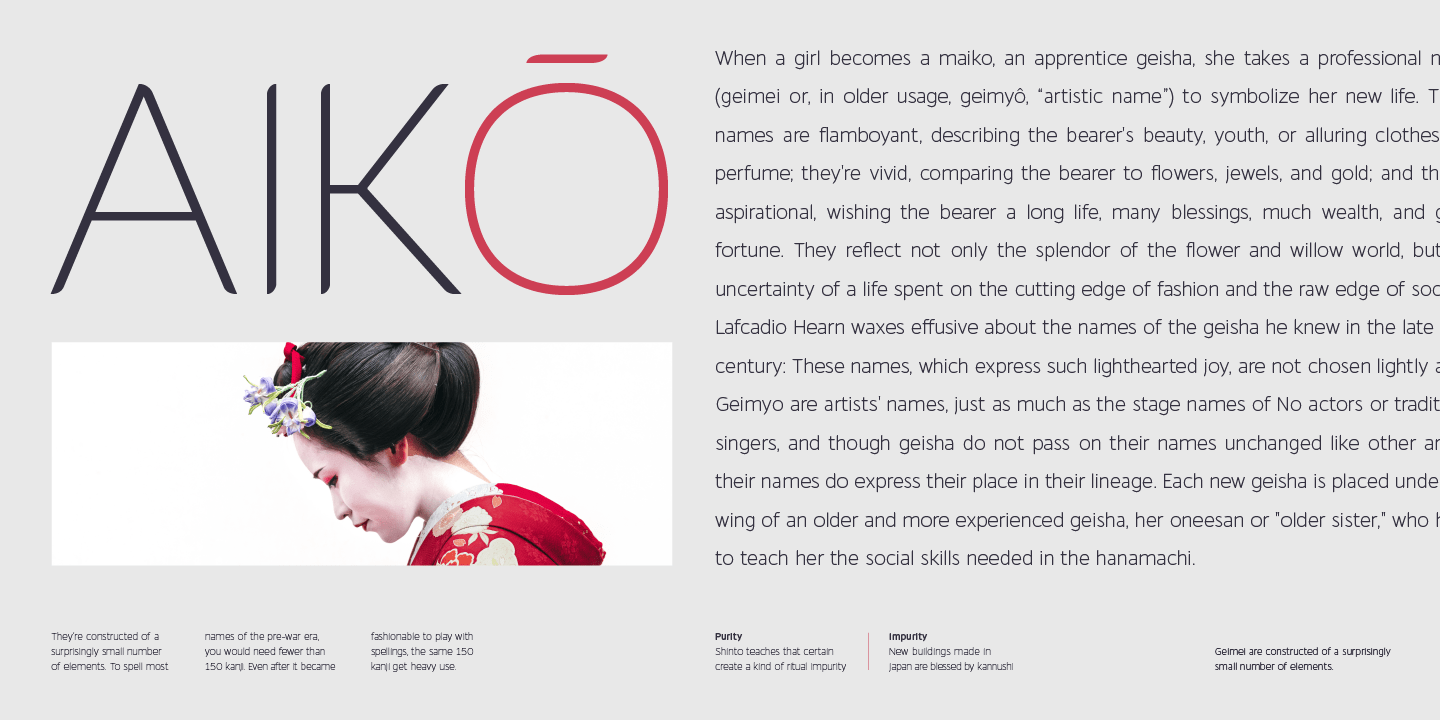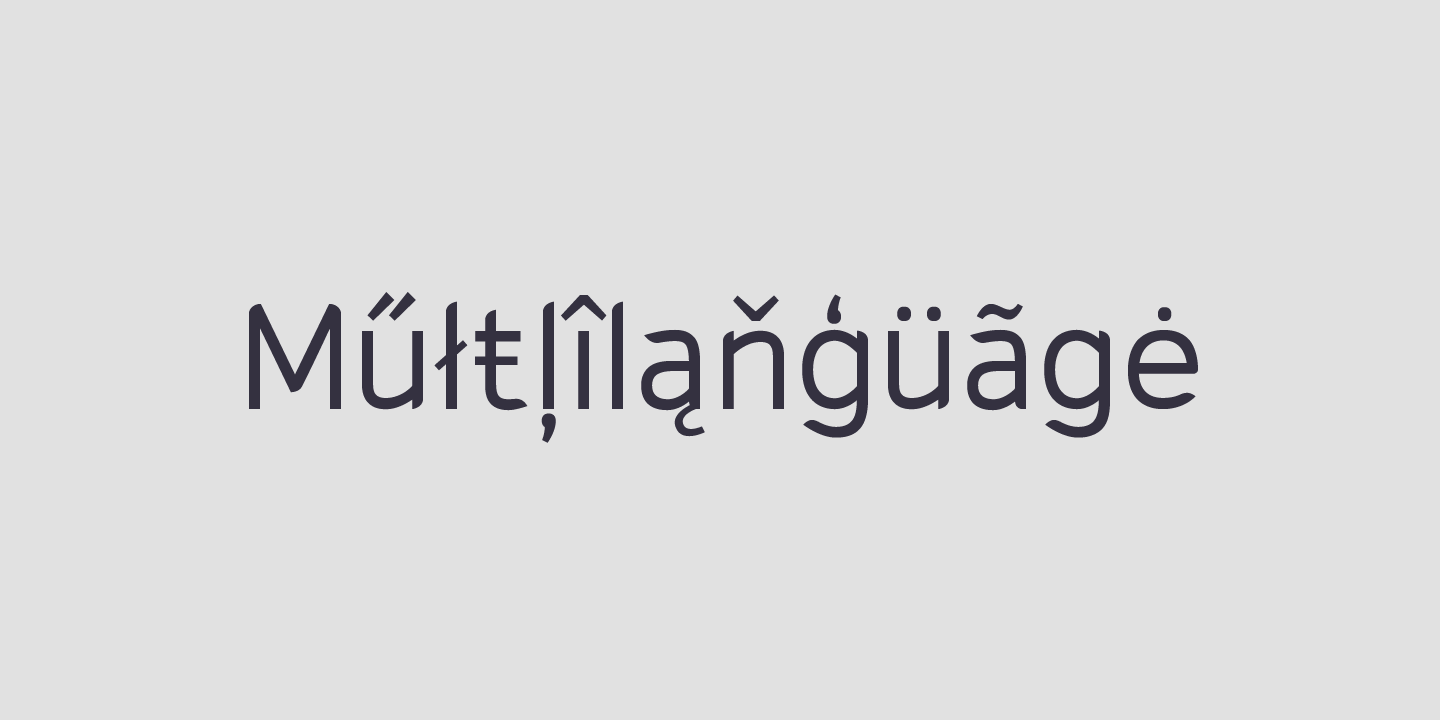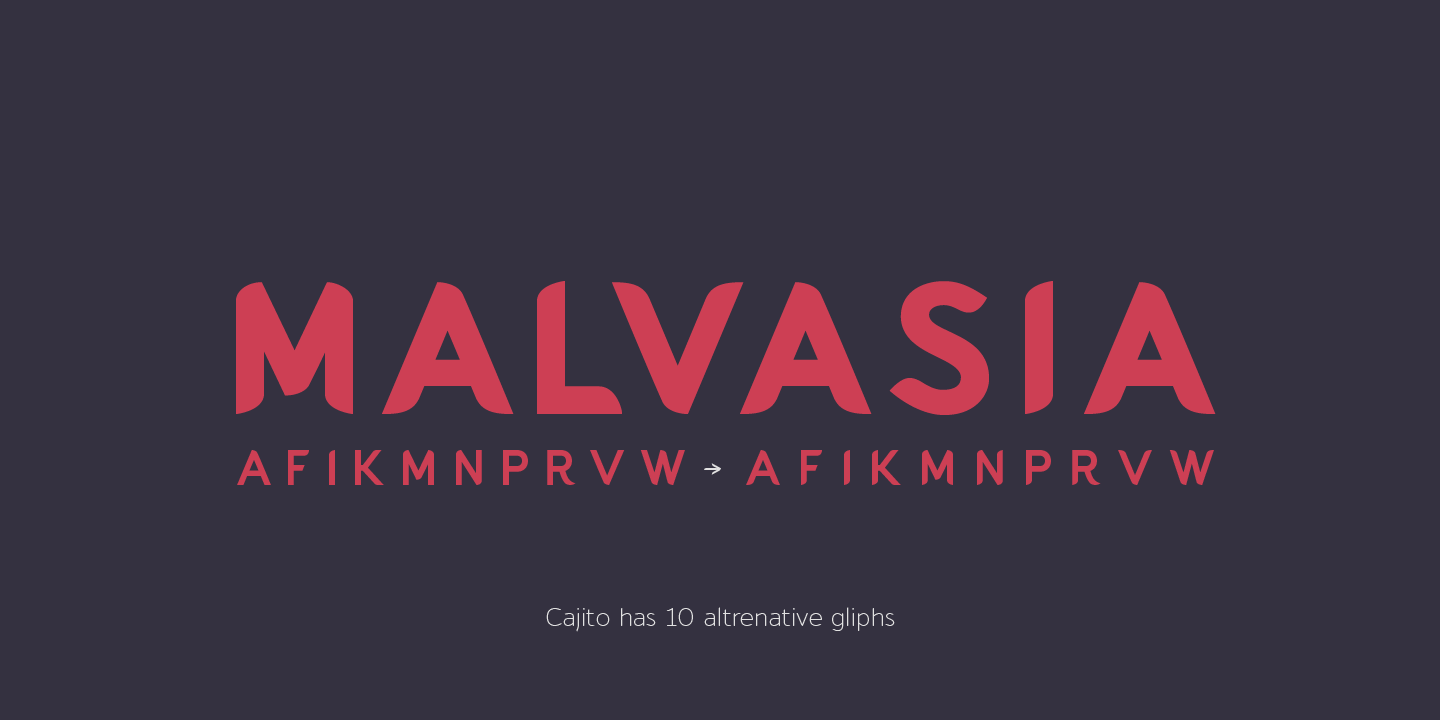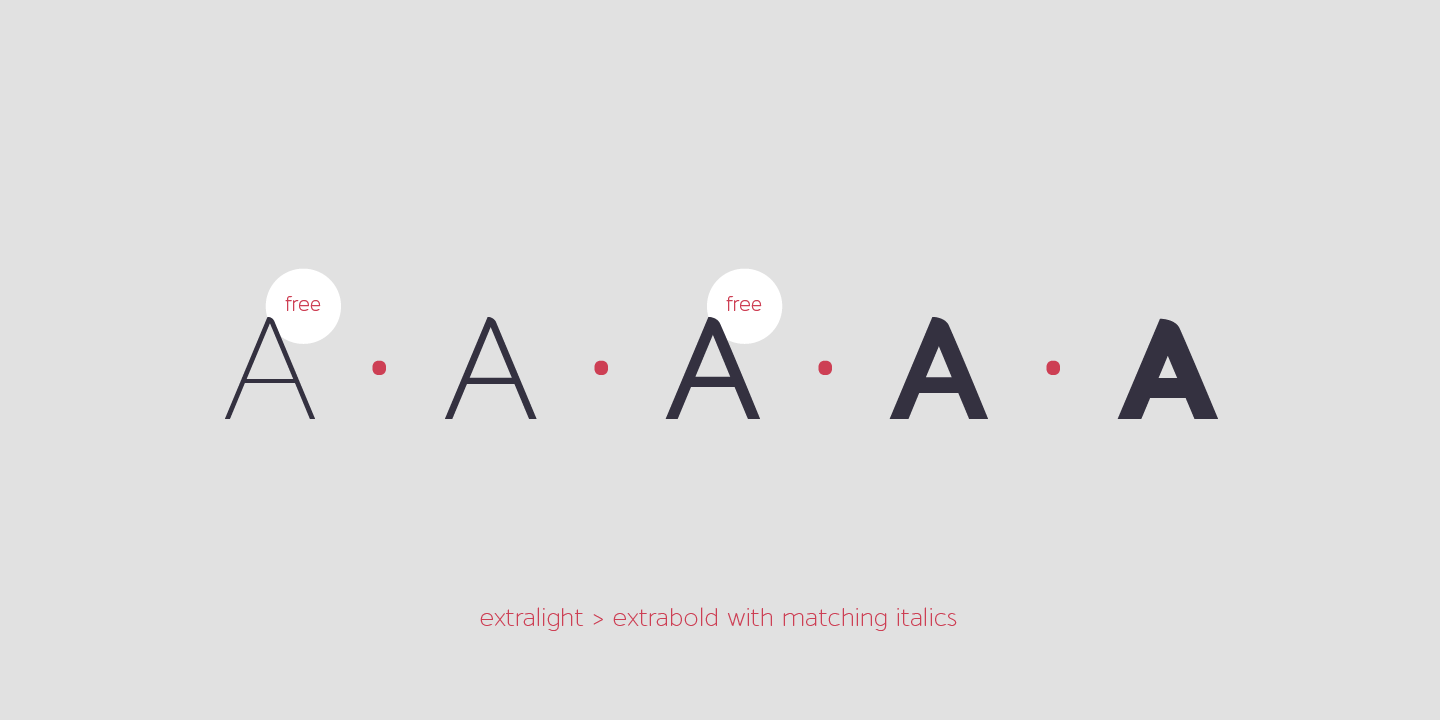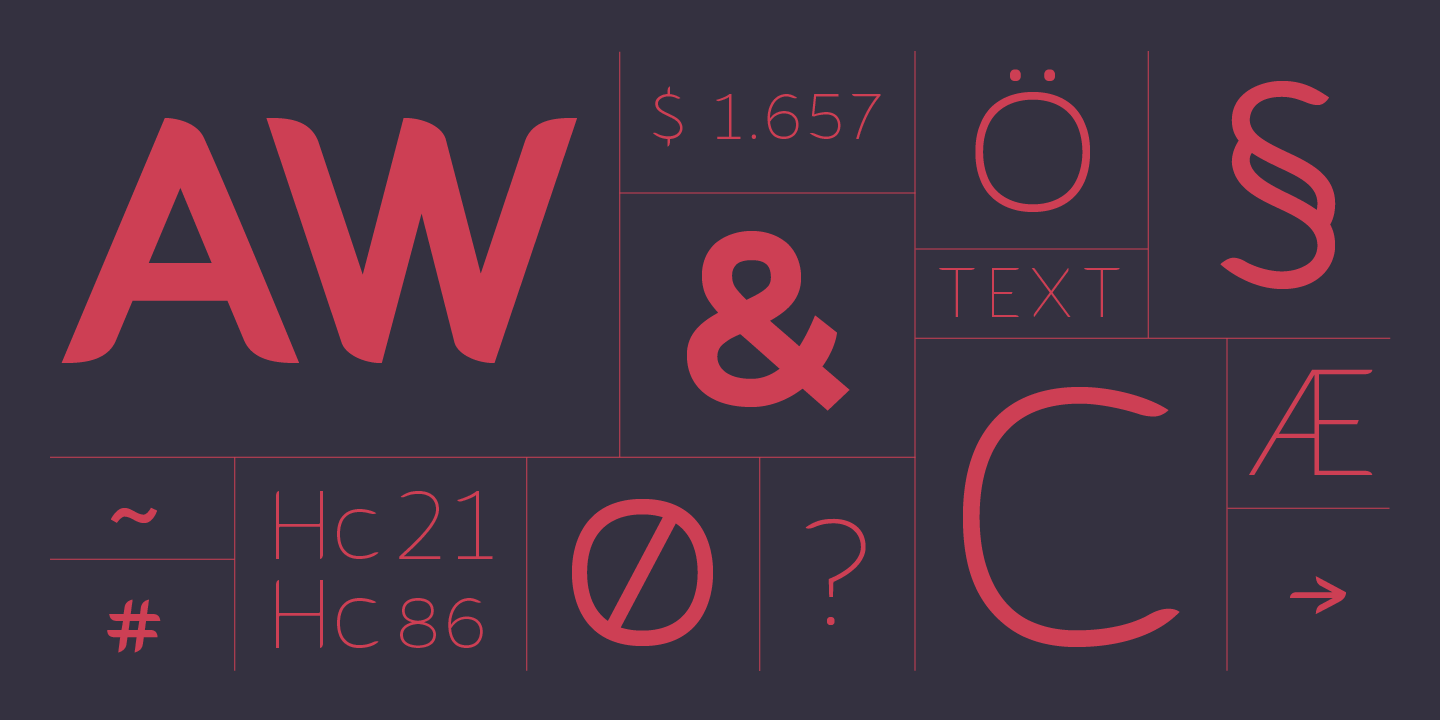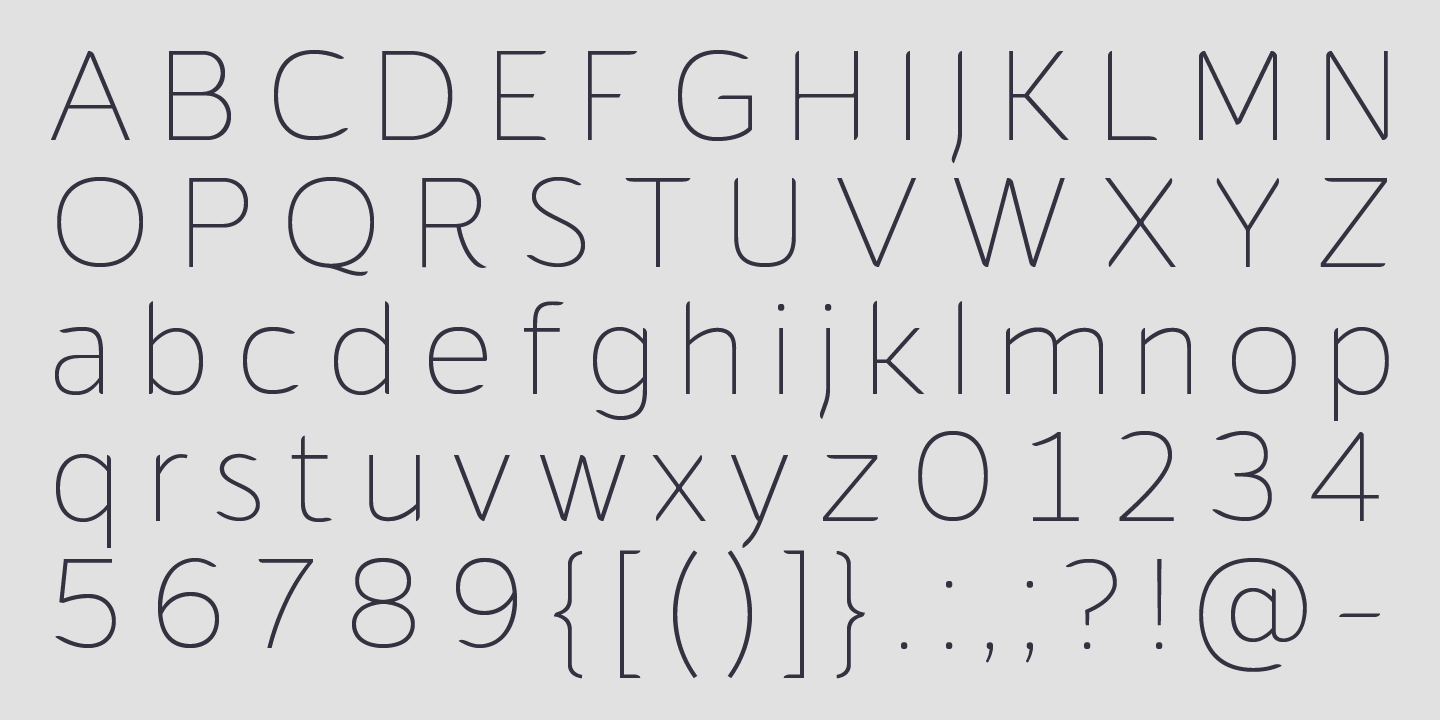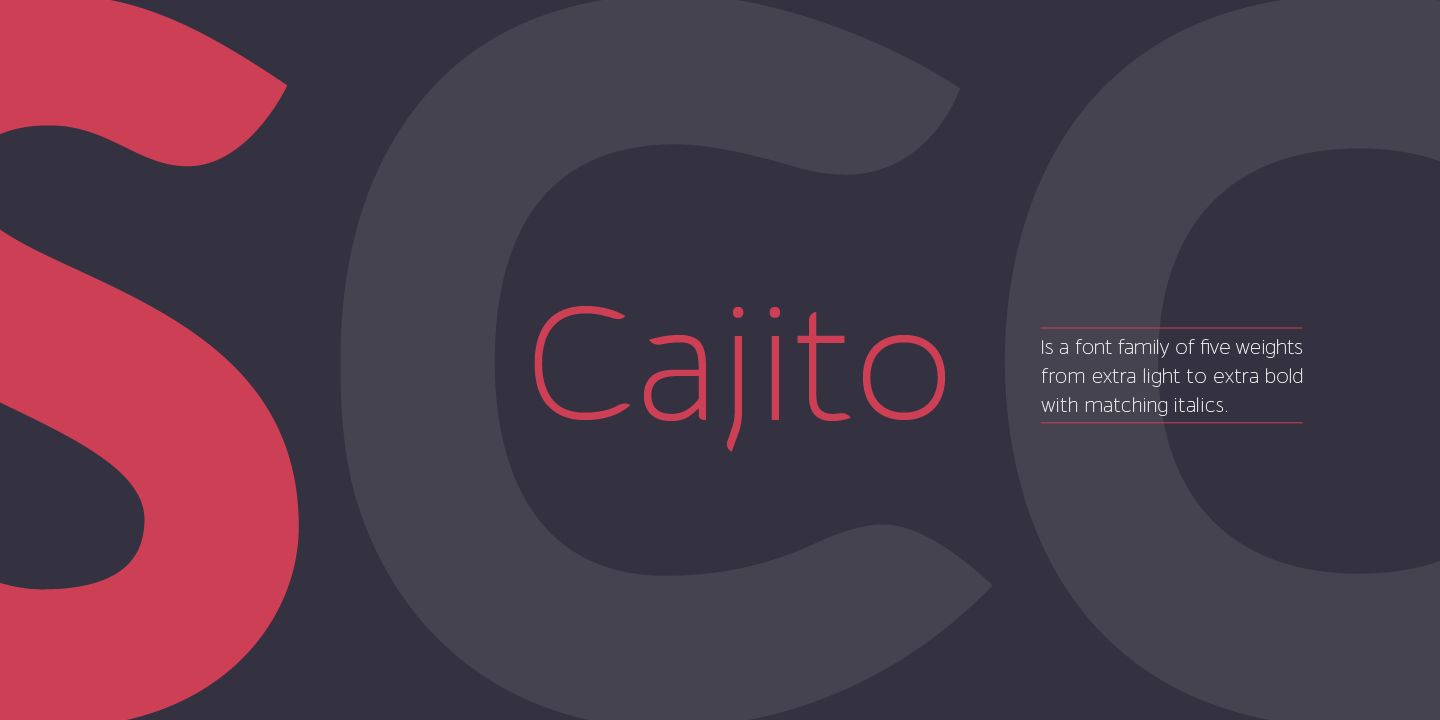
Cajito
Font Family by Rosario Nocera
Cajito is a font family with a medium contrast, developed for numerous uses, ranging from app to website and catalogue to corporate design especially for logo design, Cajito has ten alternative capitals and his terminal looks like the fins of a fish. Cajito font family consists of five weights from extra light to extra bold with matching italics.